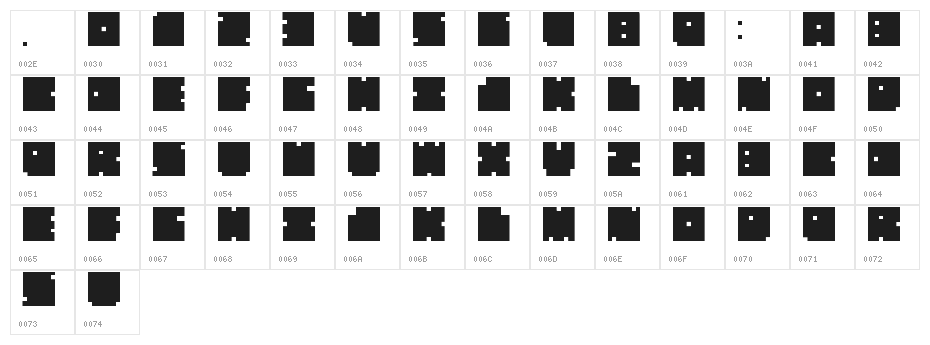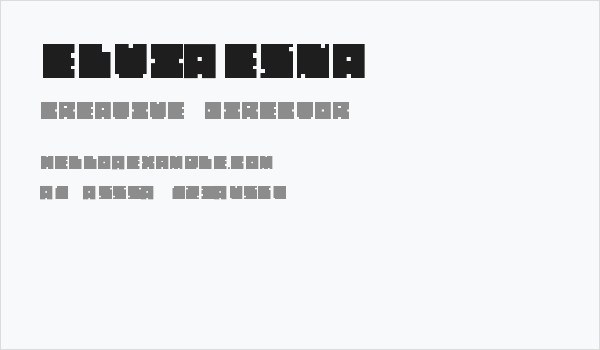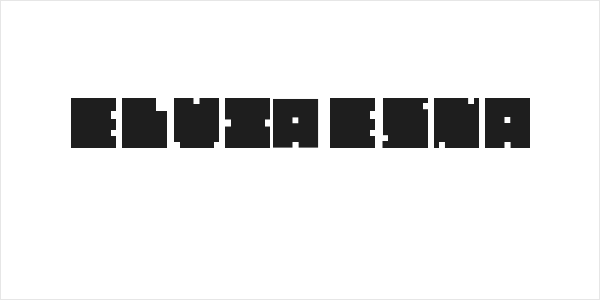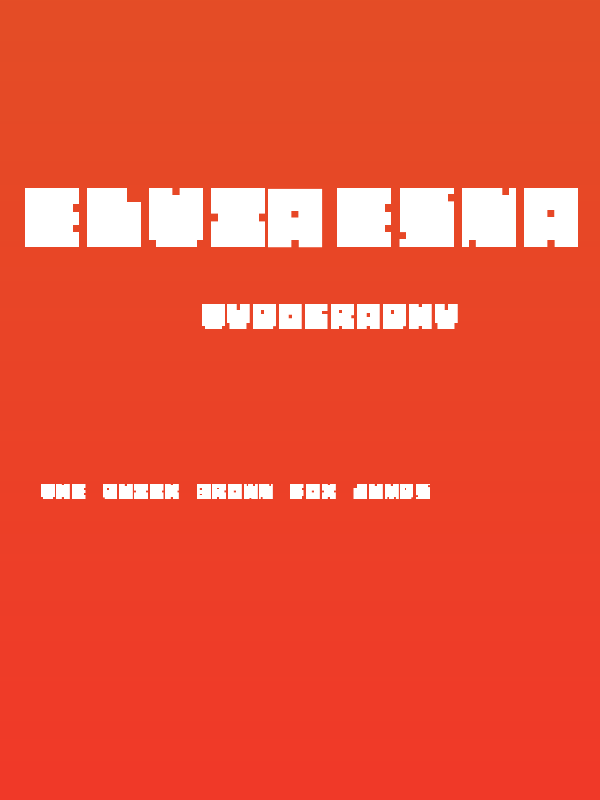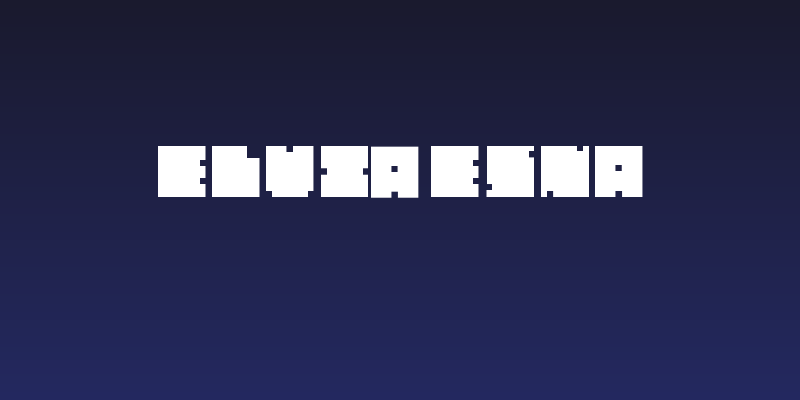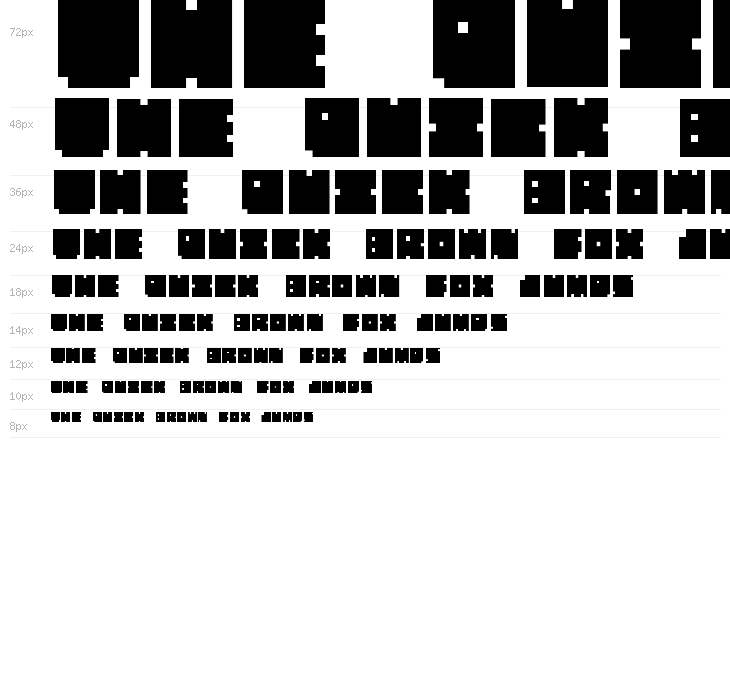
Elvi-Esna Font
Elvi-Esna Description
This font features a bold, geometric design with a blocky, pixelated appearance. Each character is constructed with sharp, angular lines, giving it a distinctly digital and modern feel. The uniformity in height and width across all characters contributes to a cohesive and structured look. The font's design is reminiscent of early digital displays or retro video game graphics, making it ideal for projects that aim to evoke a sense of nostalgia or a futuristic aesthetic. The characters are evenly spaced, maintaining a consistent rhythm throughout the text. This font is particularly effective in capturing attention due to its strong visual impact and high readability at larger sizes.
Proposed ProjectsIdeal for video game graphics, tech-themed posters, digital art, and retro-inspired designs.